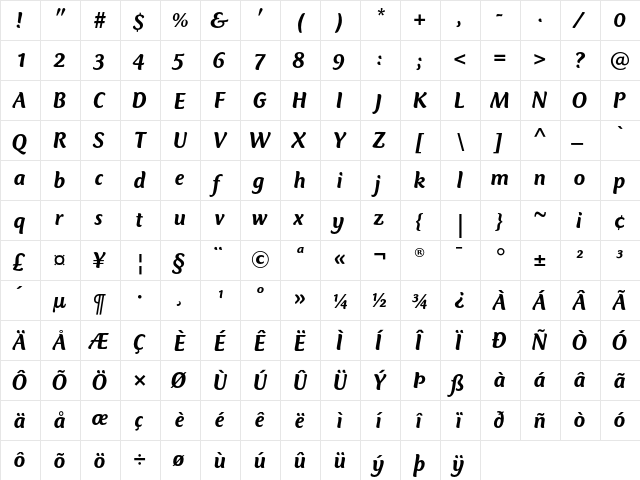
Club Type Mercurius Medium Italic Font Preview
Club Type Mercurius Medium Italic
Design Context for Club Type Mercurius Typeface
Club Type Mercurius takes a measured approach to typography — its balanced proportions and neutral character make it a reliable workhorse for both digital and print work. The dynamic lean of this cut emphasises speed and emphasis in any layout.
Pro Tip: Try Club Type Mercurius for annotation and caption copy alongside an upright companion — the contrast in angle creates a dynamic but ordered typographic system.